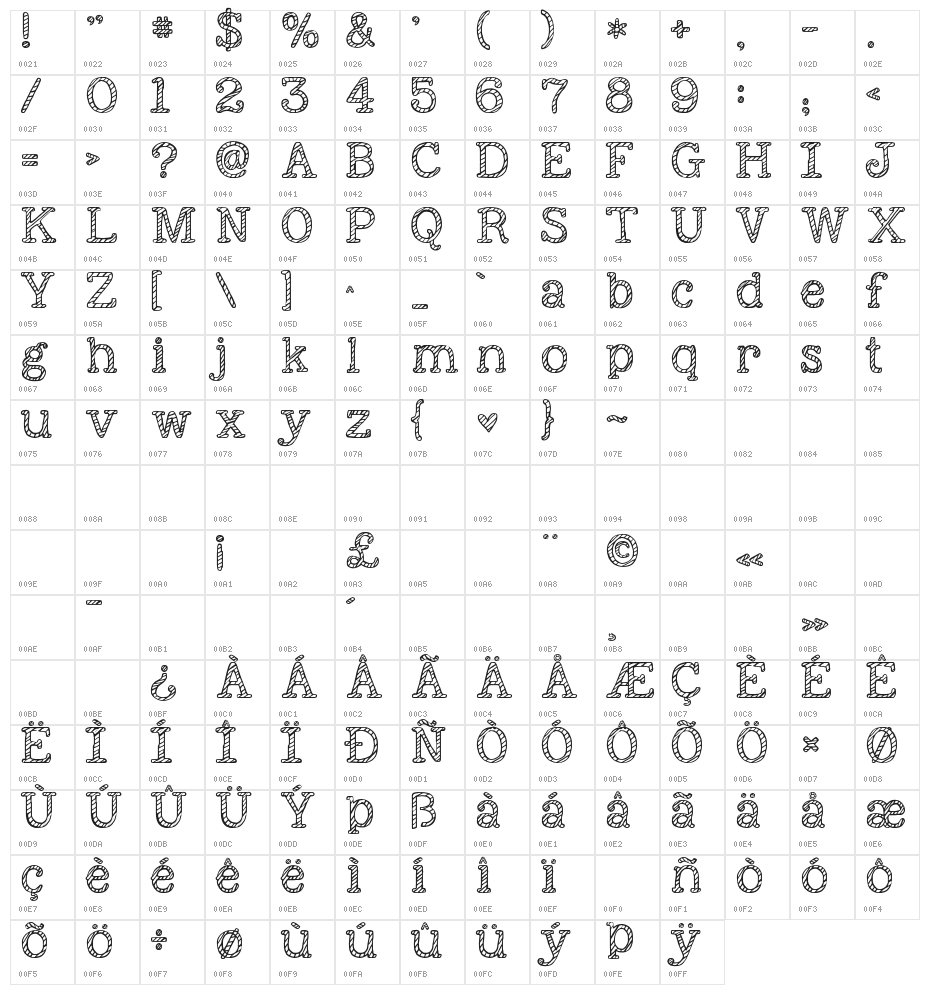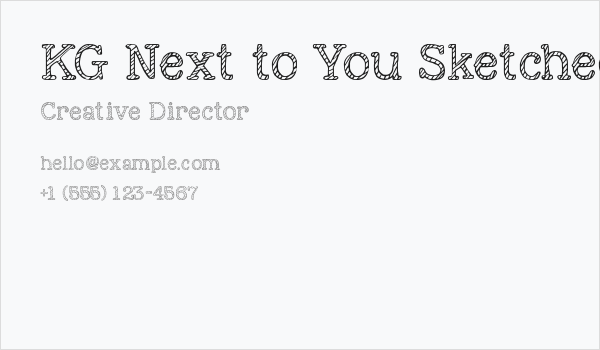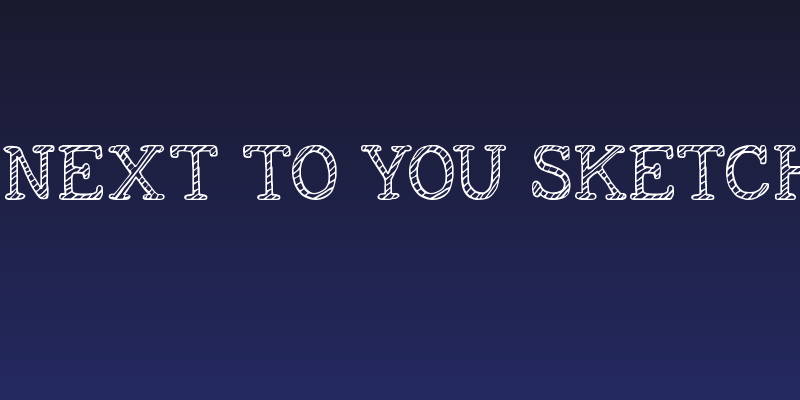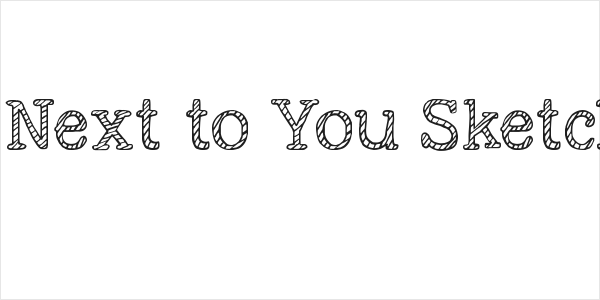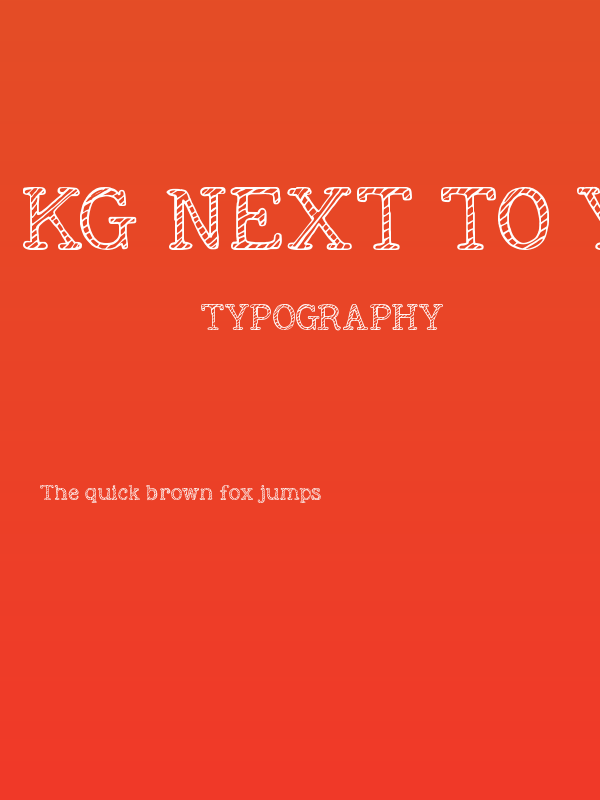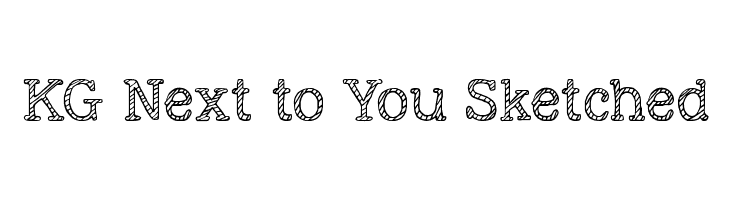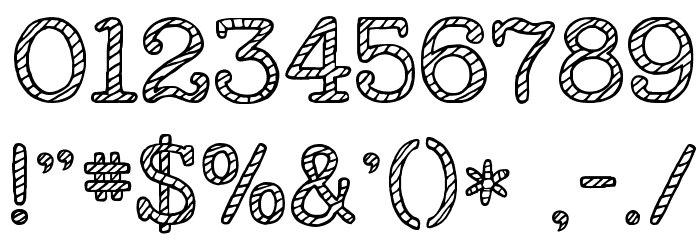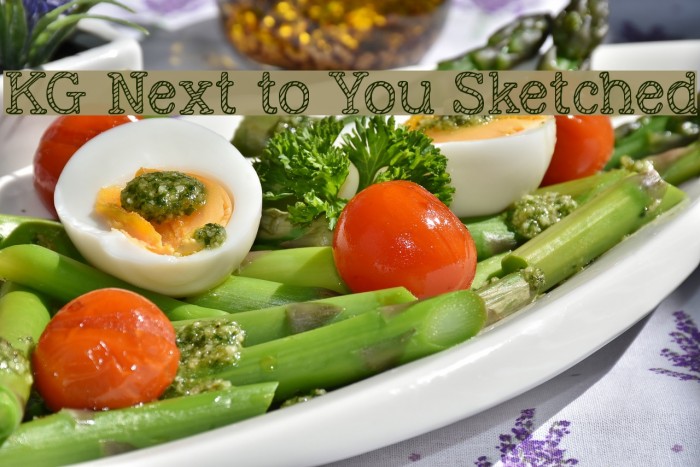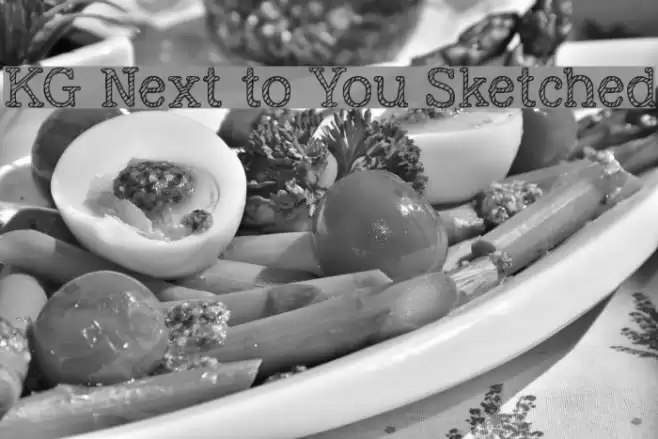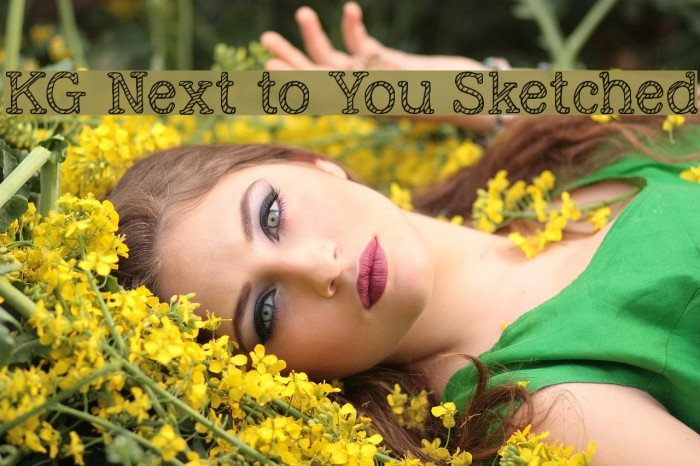
KG Next to You Sketched Font
KG Next to You Sketched Description
This font features a playful and artistic design, characterized by its hand-drawn, sketched appearance. Each letter is outlined with a bold stroke and filled with diagonal lines, giving it a textured, rope-like effect. The uppercase and lowercase letters maintain a consistent style, with rounded edges and a casual, informal look. Numbers and special characters follow the same design principles, ensuring uniformity across all glyphs. The font's unique style makes it stand out, offering a whimsical and creative touch to any project. Its decorative nature is ideal for projects that require a fun and engaging visual element.
| Proposed Projects | Ideal for children's books, playful posters, creative branding, and artistic invitations. |